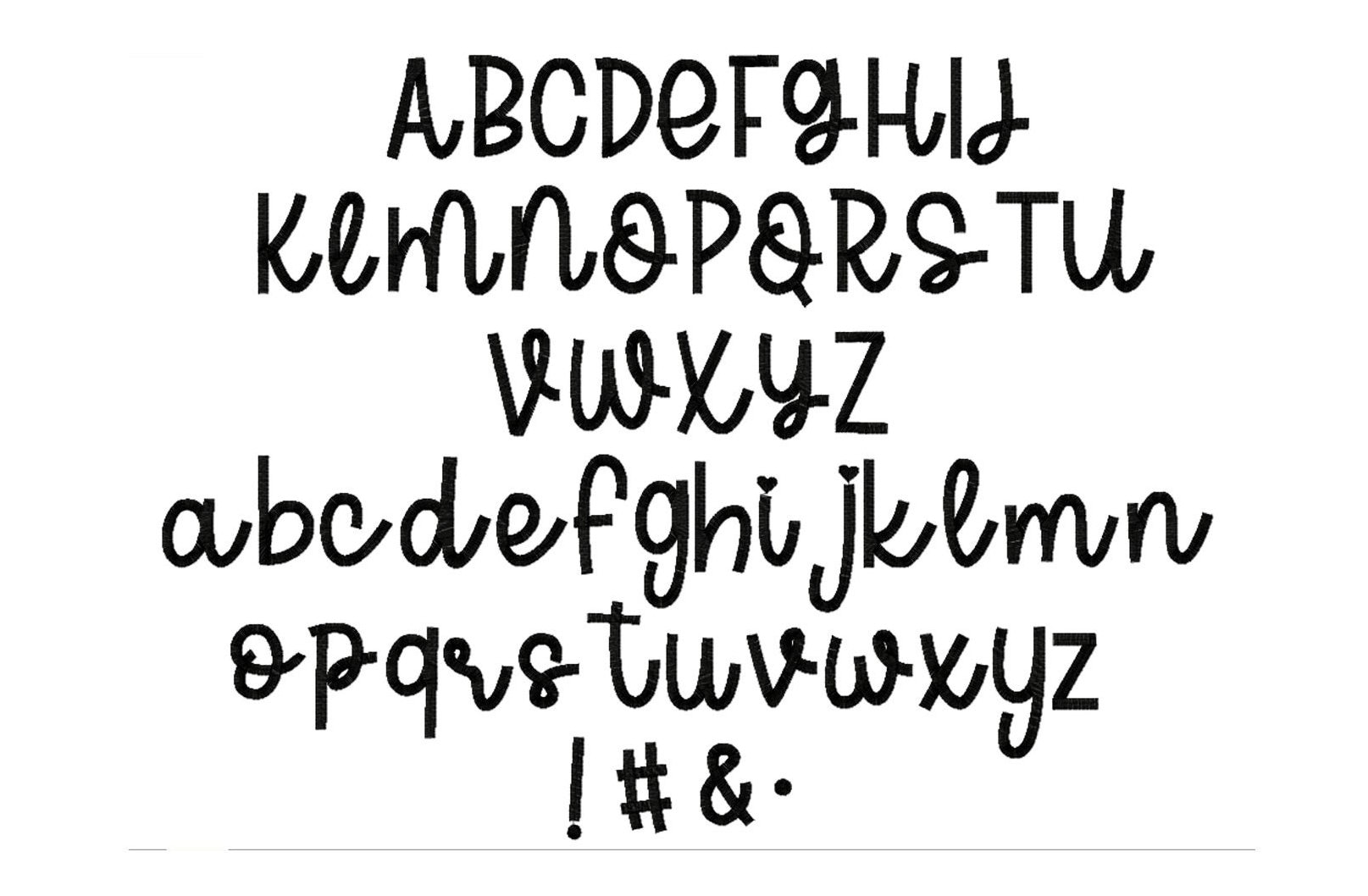
Olivia font stitched out well just wish it was offered in multiple sizes
A friend recommended this font and it did not disappoint. Stitches out clean
Love this font. Only thing that looks off to me is the Capital L looks the same as the small L. When you are typing a list of names, the capital L looks out of place compared to the other capital letters.